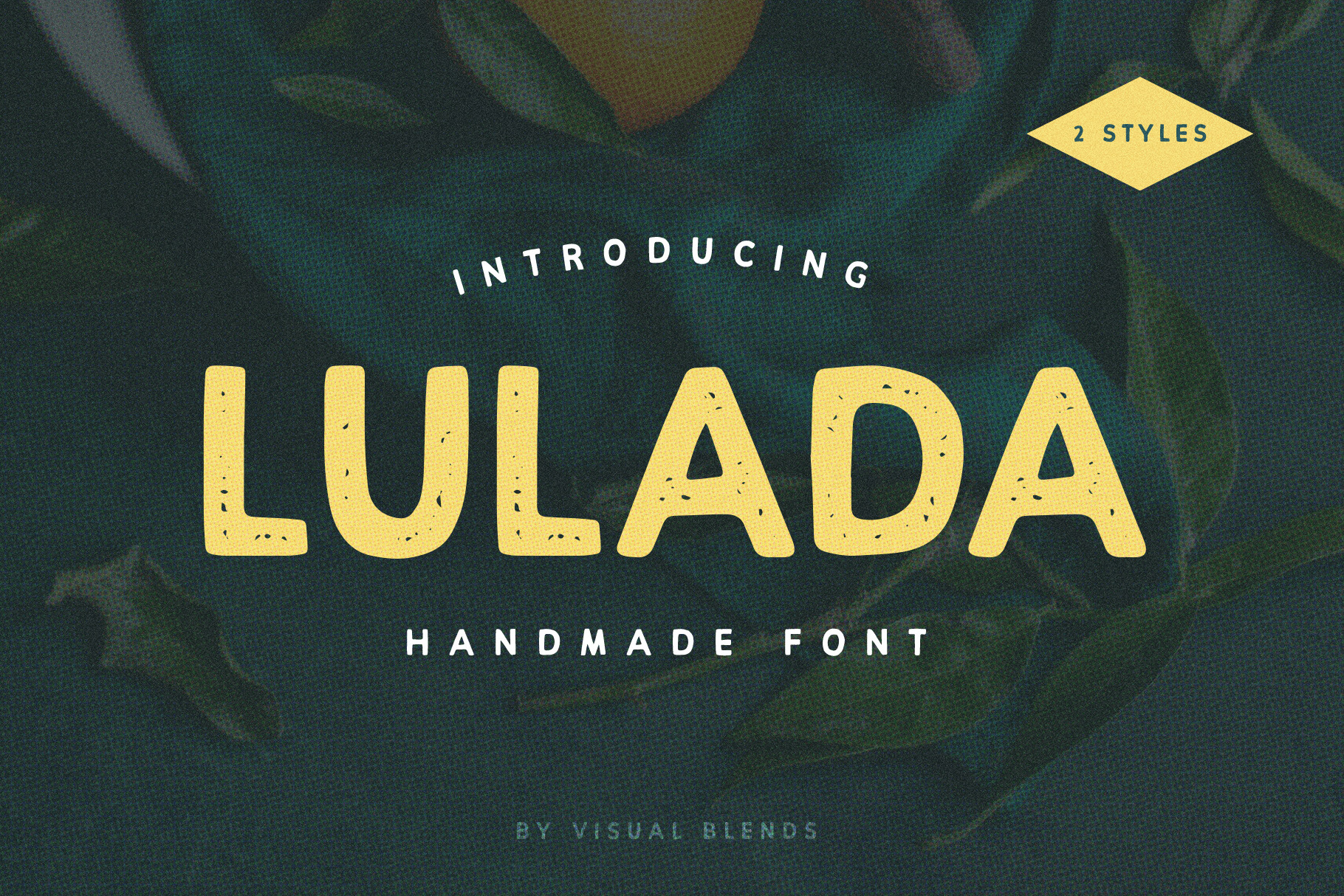
Lulada - Display Font
Lulada is a hand crafted bold display font. This font is perfect for branding, t-shirts, packaging and more! Use regular and rough to add variation to your design.
1.) Lulada - Regular - An expressive handmade font.
2.) Lulada - Rough - An expressive handmade font with a subtle grit.